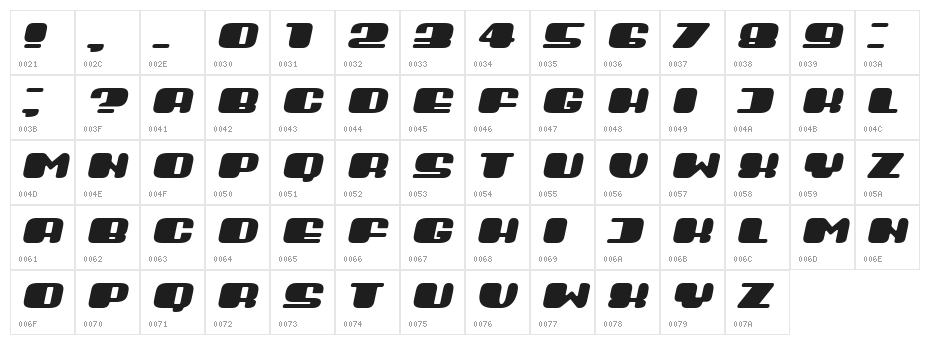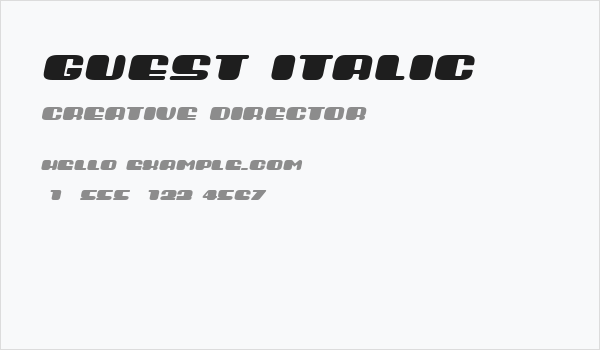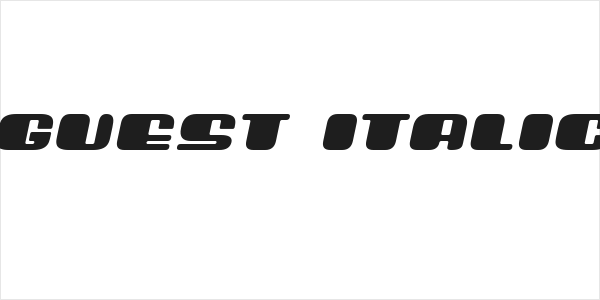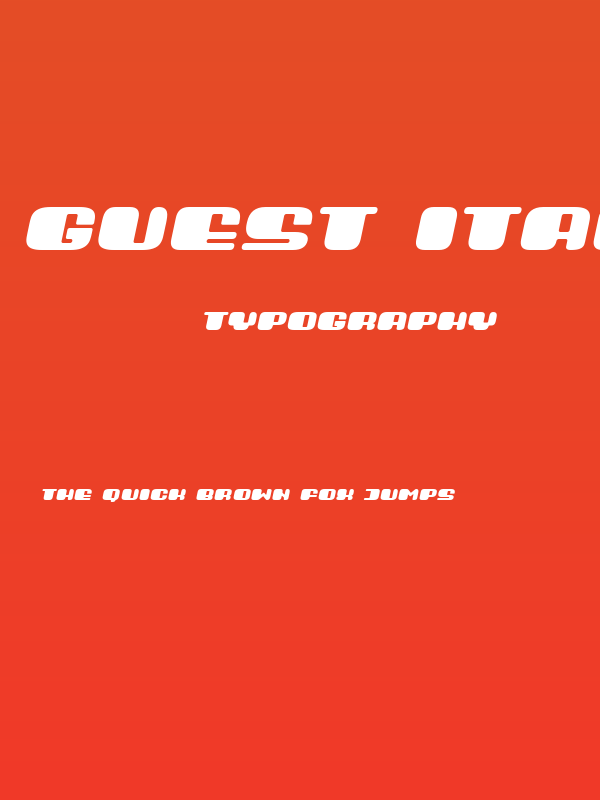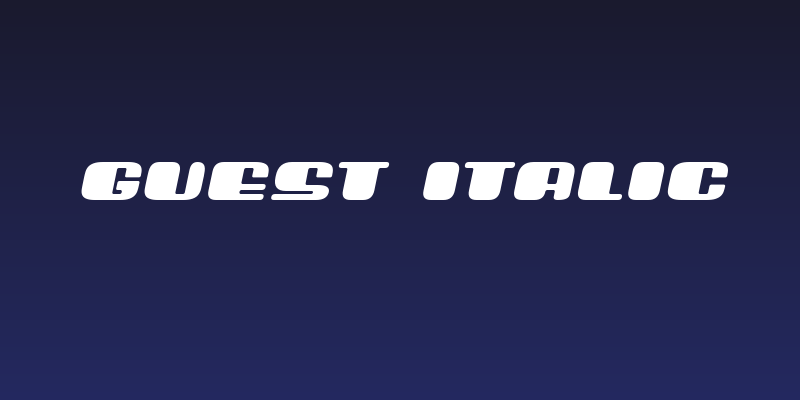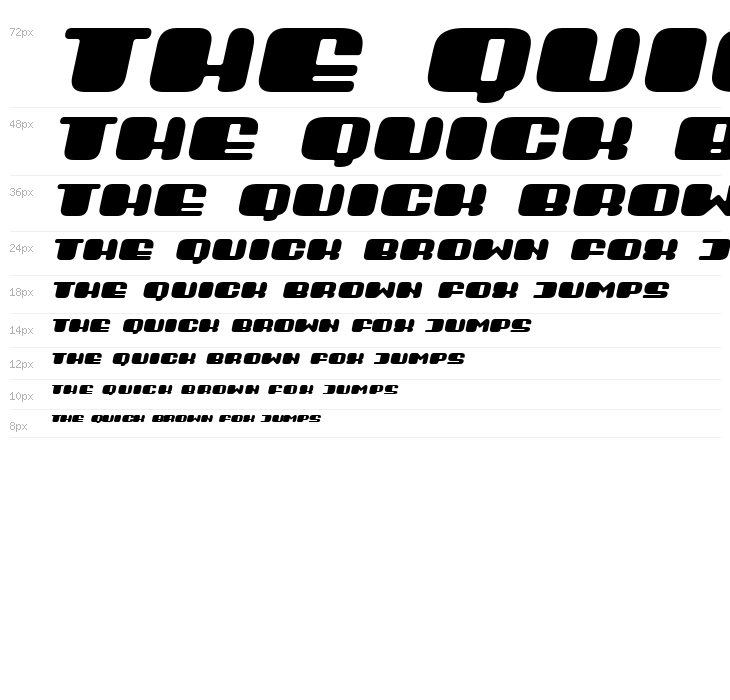
Guest Italic Font
Guest Italic Description
This font features a bold and modern design with a distinct italic slant, giving it a dynamic and forward-moving appearance. The characters are rounded with a unique, futuristic style, characterized by thick strokes and smooth curves. The uppercase and lowercase letters maintain a consistent design, with the lowercase mirroring the uppercase in style but with a slightly smaller size. The numbers and special characters follow the same bold and rounded aesthetic, ensuring uniformity across all glyphs. This font's design is eye-catching and ideal for making a strong visual impact.
| Proposed Projects | Ideal for branding, advertising, and digital media projects that require a modern and dynamic look. |